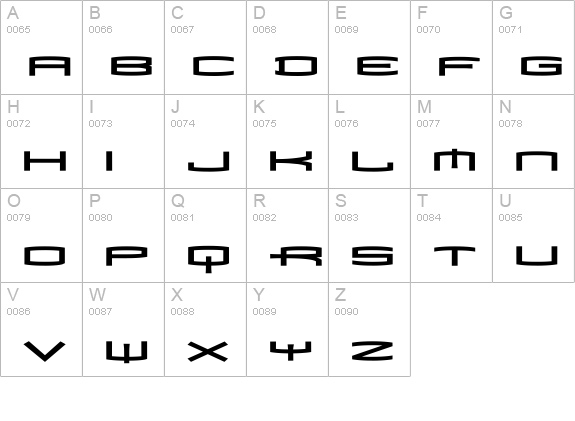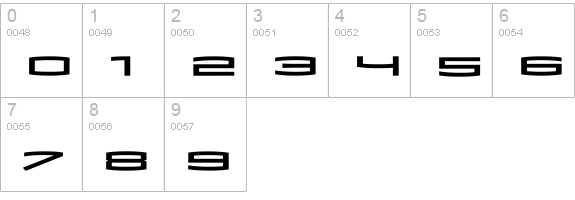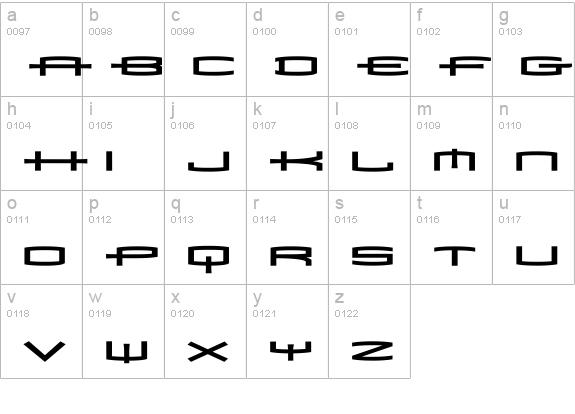
Mata-Bold is a strong, high-contrast variant in the Mata typeface family \xE2\x80\x94 well suited to headlines, attention-grabbing titles, and strong calls-to-action.
Introducing Mata-Bold, a captivating and versatile font that effortlessly combines elegance with a touch of boldness. This striking typeface is the perfect choice for those seeking to make a bold statement, whether in print or digital mediums. Mata-Bold commands attention with its strong and assertive letterforms, making it ideal for headlines, titles, and branding projects that require a powerful visual impact. Its clean lines and well-defined curves lend a sense of sophistication and professionalism to any design. What truly sets Mata-Bold apart is its unique ability to strike a balance between strength and grace. The thick strokes add weight and presence, while the delicate details within each character provide a subtle touch of refinement. This harmonious contrast ensures that your message is both impactful and visually appealing. But the best part? Mata-Bold is available for free download exclusively at FontsMarket.com. Yes, you read that right. This exceptional font is freely accessible, allowing designers, creatives, and enthusiasts alike to experience its beauty without any cost. Whether you're working on a personal project, a client's branding campaign, or simply experimenting with different typographic styles, Mata-Bold is a must-have addition to your font library. Its versatility and timeless appeal make it suitable for a wide range of applications, from fashion and beauty to editorial and corporate designs. So why wait? Embrace the power and elegance of Mata-Bold today, and elevate your designs to new heights. Discover its captivating allure and download this remarkable font for free at FontsMarket.com.